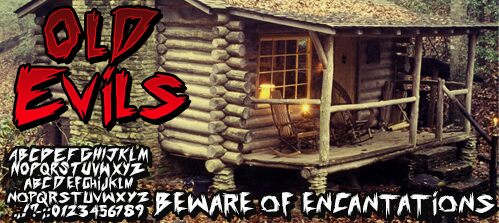
Old Evils, created by Press Gang Studios in 2012, is a free scary display font with a rough brush-cut edge. Its tall letters lurch between broad black strokes and sudden needle-like points. The silhouette looks torn and aggressive.
A horror poster is its clearest role, especially for slashers and haunted attractions. Album covers, game graphics, and Halloween merchandise also suit the frantic lettering. Across those uses, the ragged forms resemble claw marks or ripped paper, linking words to violent imagery.